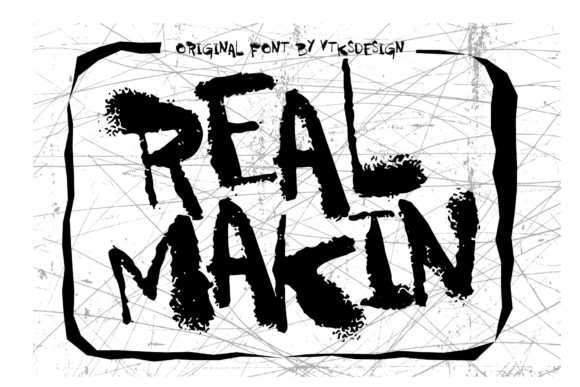
Step into the whimsical world of Realmakin, a font crafted to ignite the imaginations of young readers. Its playful strokes and enchanting charm will weave a spell of wonder upon any text.
Journey through your child's favorite stories with Realmakin, a font that brings characters and adventures to life. Its dynamic lines paint pictures in the minds of young readers, inspiring them to dream big and soar high. Each letter is a masterpiece, carefully designed to encourage exploration and foster a love for the written word.
Realmakin's distinct brushed style evokes a sense of warmth and authenticity, drawing young readers into the heart of the story. It's as if each word was whispered by a beloved grandparent, sharing treasured tales of heroes and magical creatures. With Realmakin, learning becomes an enchanting experience, where every page is a portal to new worlds.
Whether you're crafting captivating lesson plans, creating imaginative storybooks, or designing interactive learning materials, Realmakin is the ultimate font for sparking a lifelong passion for reading. Its versatility knows no bounds, adapting seamlessly to any project that seeks to capture the hearts and minds of young learners.
So, embark on a literary adventure with Realmakin, a font that will transform your designs into enchanting realms where young readers can discover the boundless joy of reading. Let its strokes ignite their imaginations and paint vibrant pictures in their minds. With Realmakin, the world of words becomes a magical playground where anything is possible.